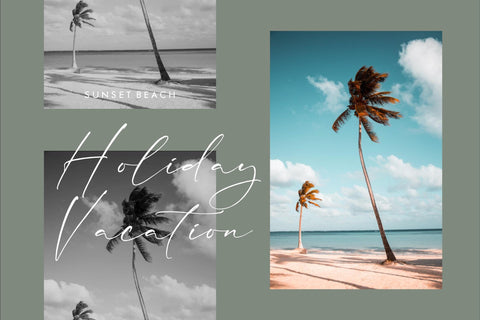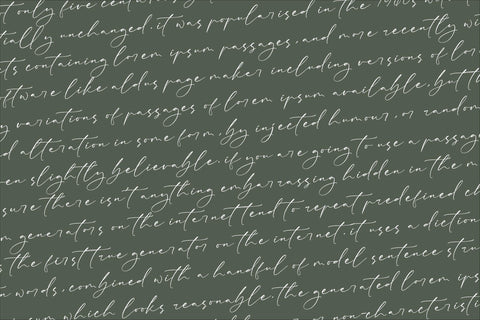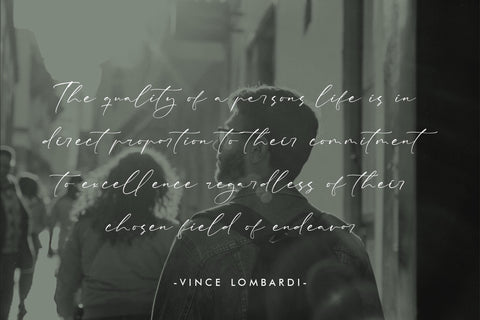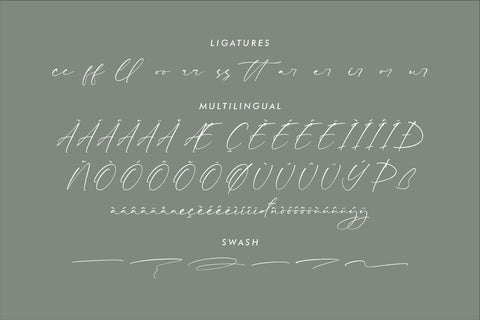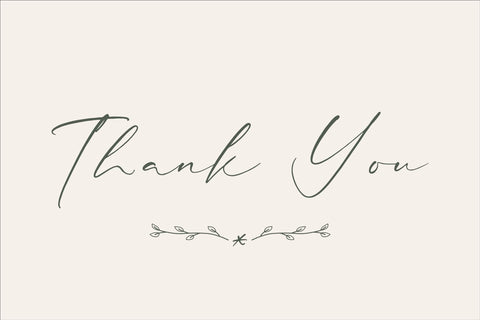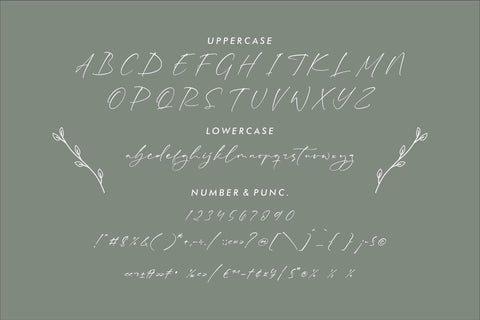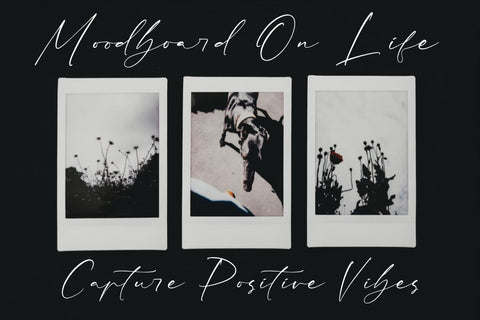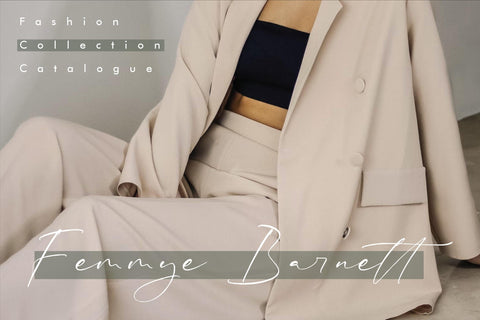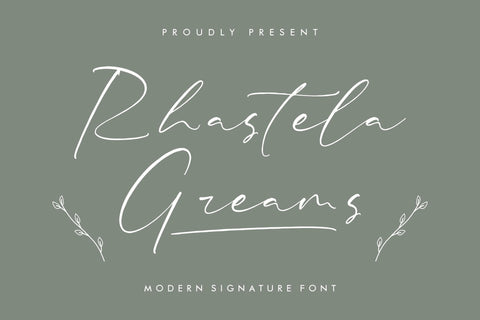
Rhastela Greams - Modern Signature Font
Proudly present Rhastela Greams - Modern Signature Font , created by Storytype,
A luxury script that has own unique style & modern look.